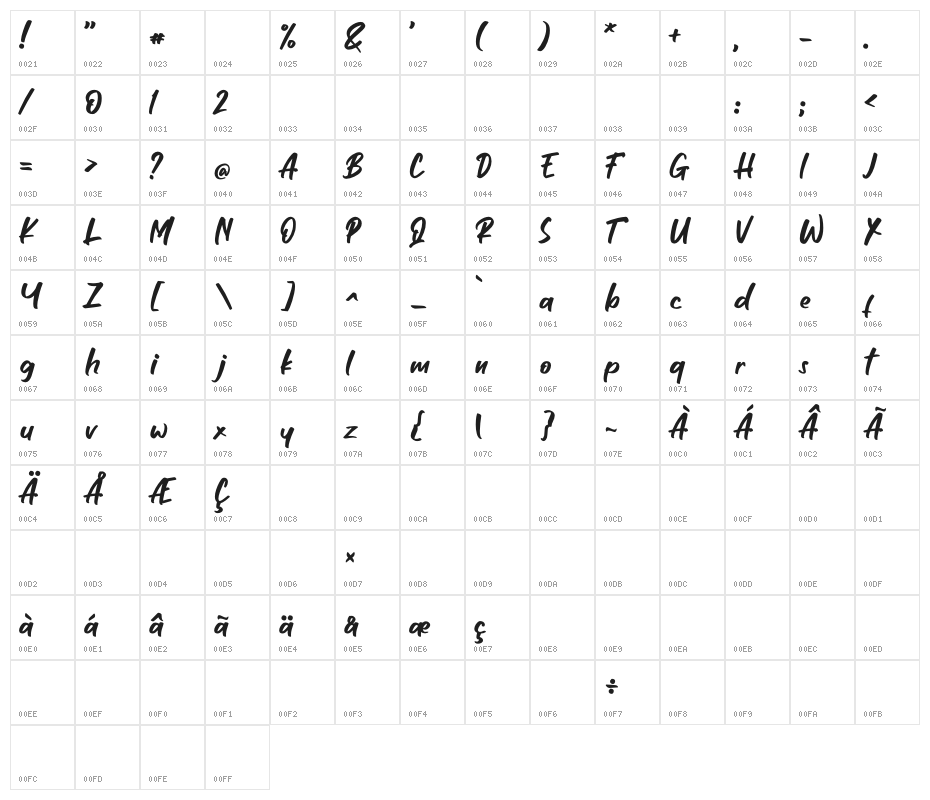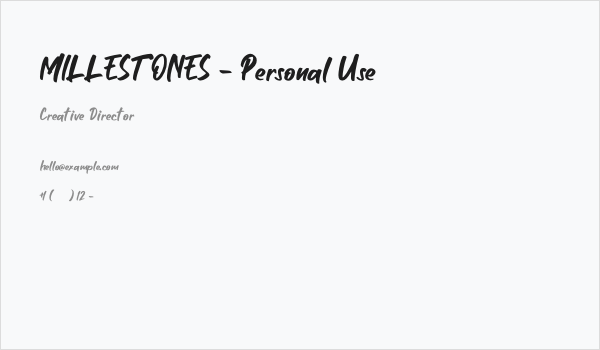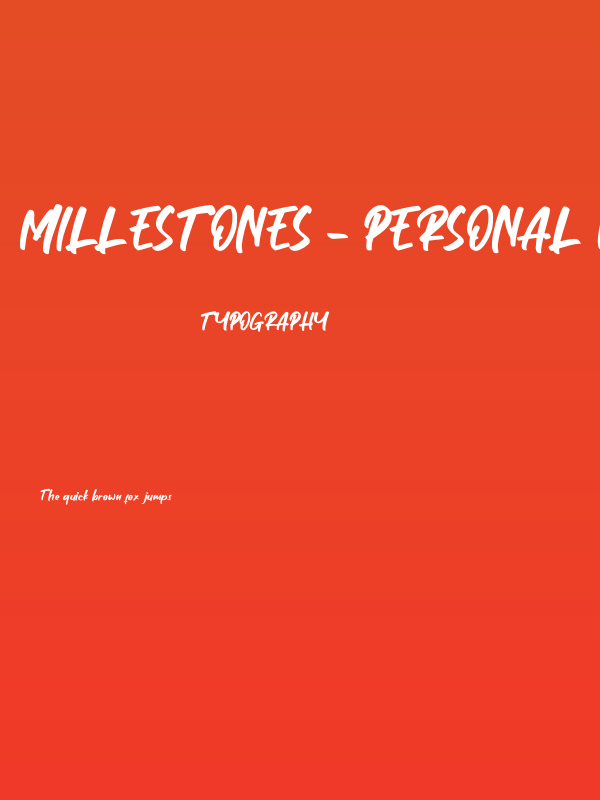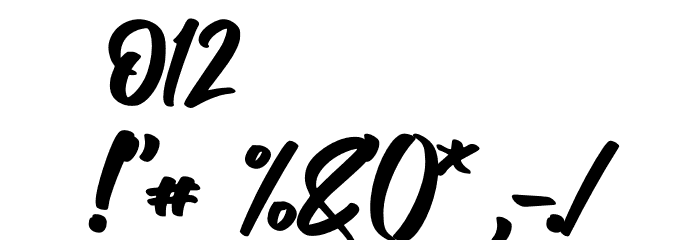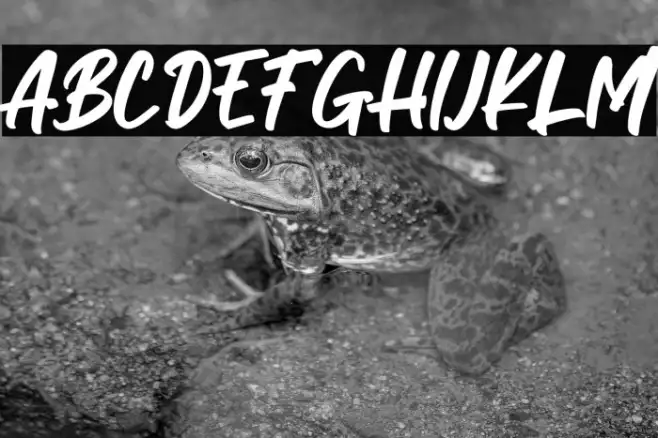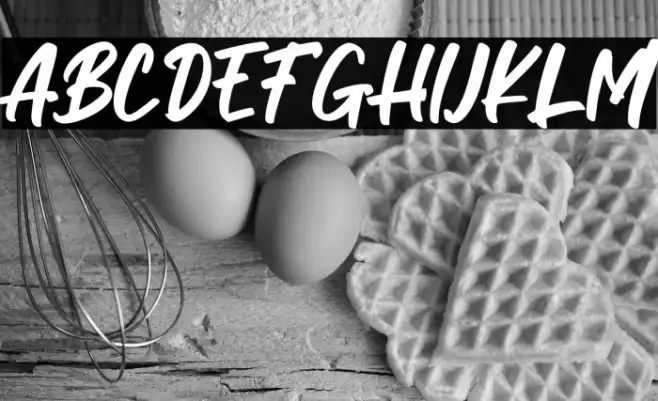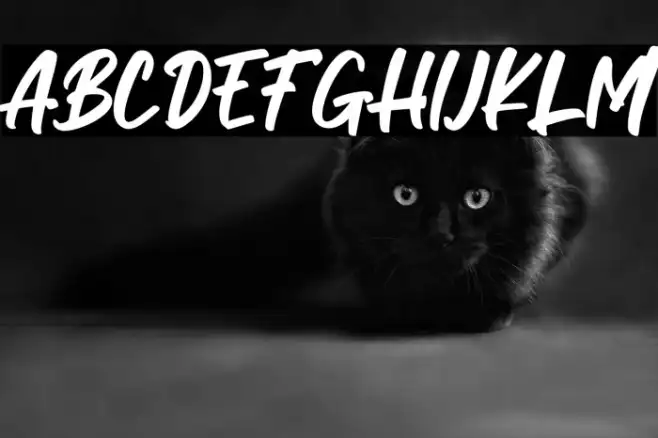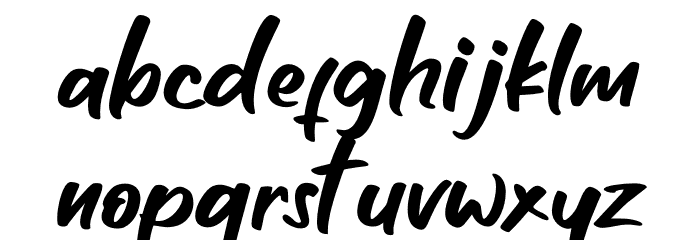
MILLESTONES - Personal Use Font
MILLESTONES - Personal Use Description
This font features a bold, expressive style with a handwritten appearance. The letters are slightly slanted, giving a dynamic and energetic feel. The strokes are thick and consistent, with a smooth flow that mimics natural handwriting. The uppercase letters are bold and prominent, while the lowercase letters maintain a cohesive look with slightly rounded edges. Numbers and special characters follow the same stylistic approach, ensuring uniformity across all glyphs. This font is ideal for projects that require a personal touch or a creative flair.
| Proposed Projects | Ideal for branding, social media graphics, posters, and invitations that require a personal or artistic touch. |